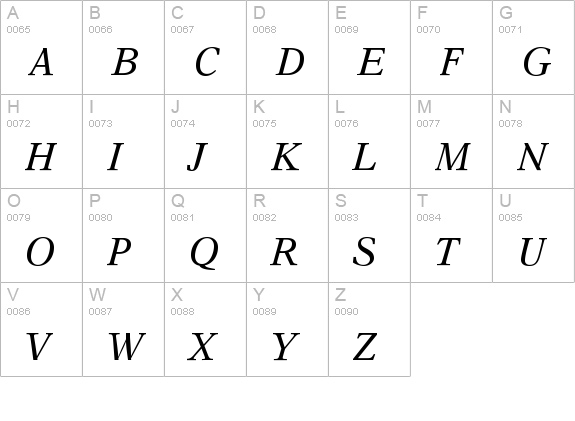
New Aster Italic Font Details
New Aster Italic is a distinctive, italic variant in the New typeface family \xE2\x80\x94 well suited to design and typography projects.
Introducing New Aster Italic font, a sleek and modern typeface that exudes sophistication and elegance. This stylish font features clean lines and a delicate italicized style that is perfect for adding a touch of class to your designs. Whether you're working on a branding project, creating invitations, or designing a website, New Aster Italic font is sure to elevate your work to the next level. What's even better is that New Aster Italic font is available for free download at FontsMarket.com. That's right, you can easily access this stunning font and use it in your projects without any cost. So why wait? Enhance your designs with the timeless beauty of New Aster Italic font today!